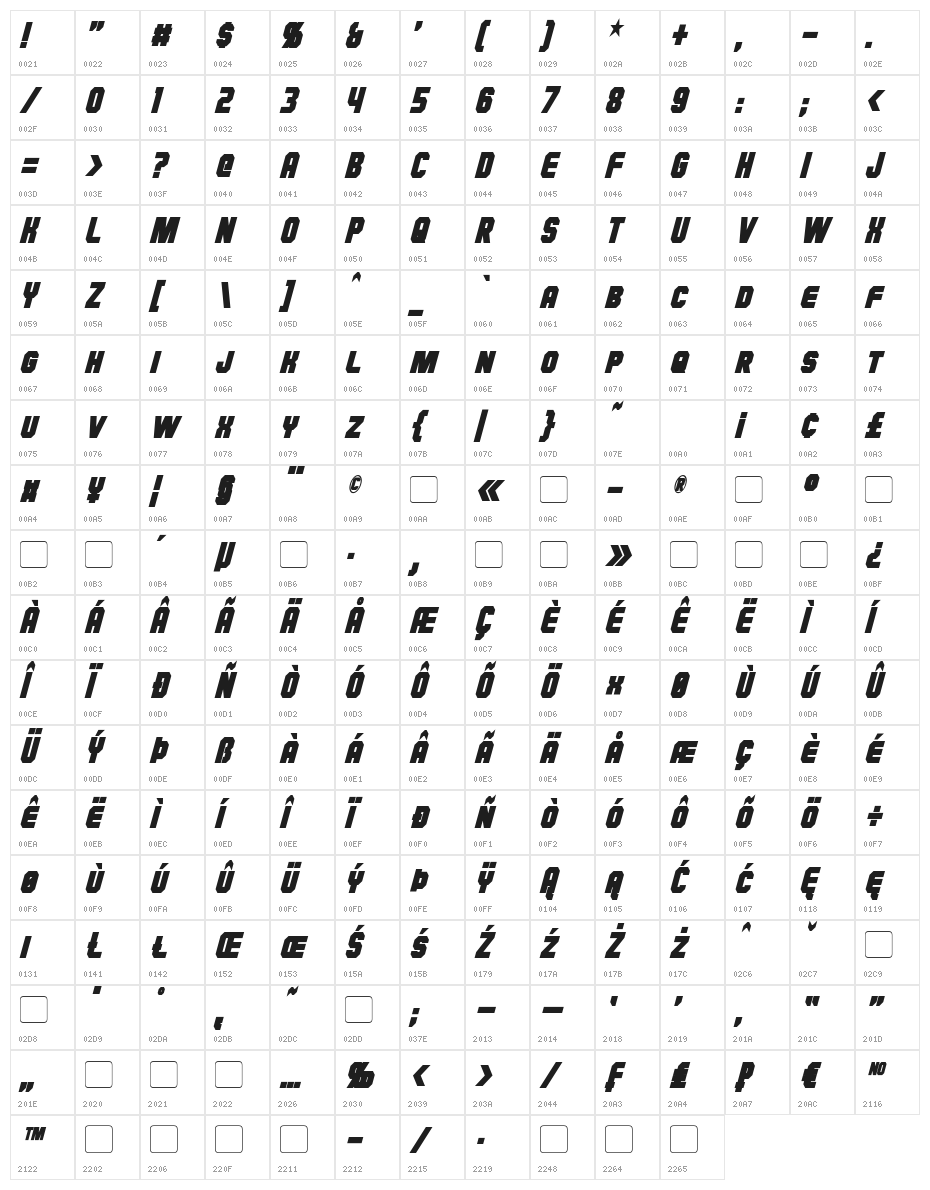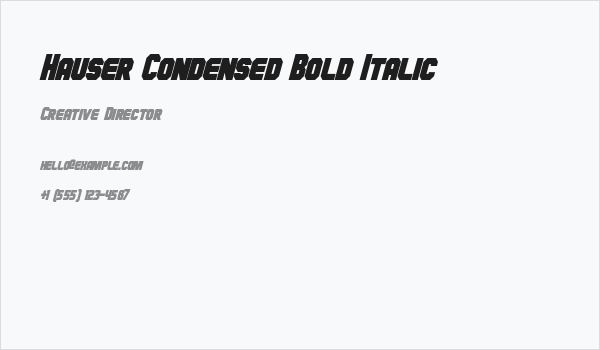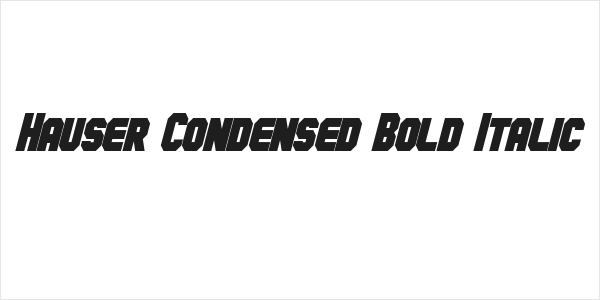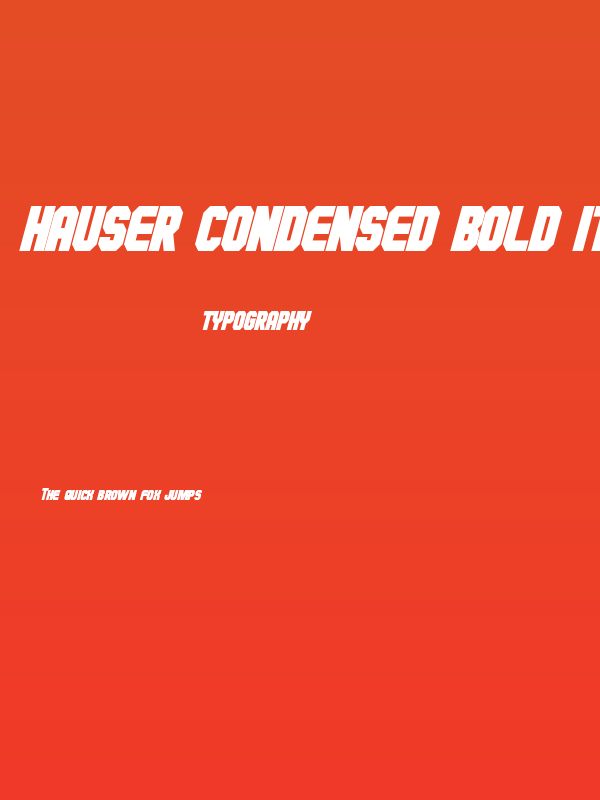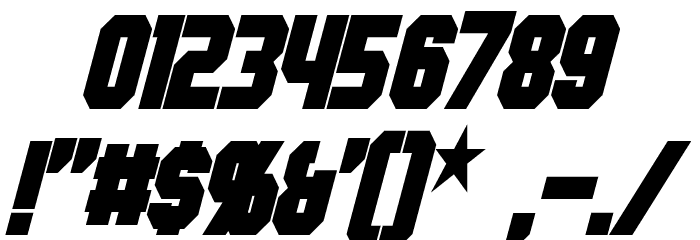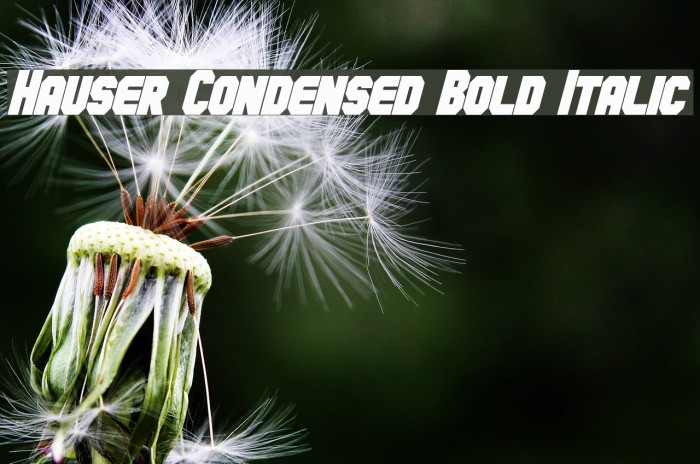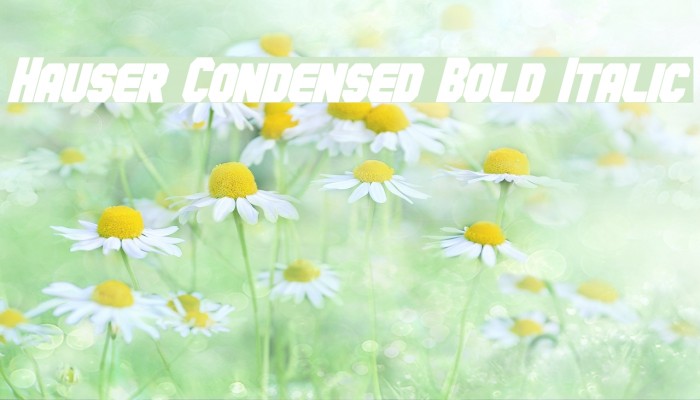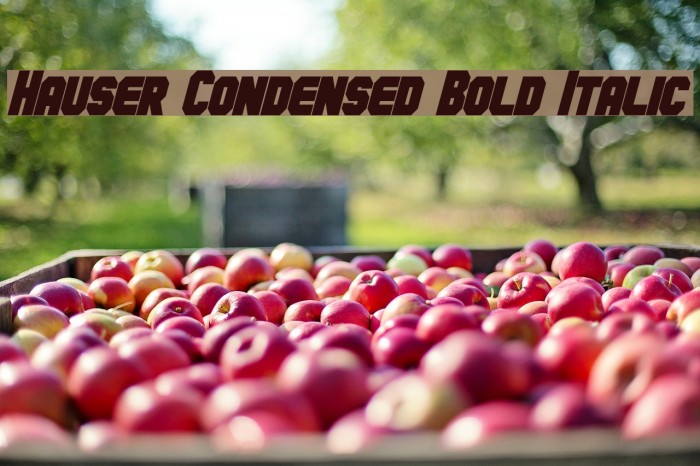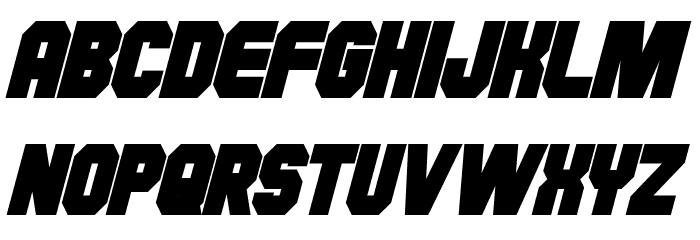
Hauser Condensed Bold Italic Font
Hauser Condensed Bold Italic Description
This font features a bold and italicized style with a condensed width, giving it a strong and dynamic appearance. The characters are sharply angled, providing a sense of movement and urgency. The uppercase letters are particularly striking, with a uniform height that maintains readability even at smaller sizes. The numbers and special characters are designed to match the boldness of the alphabet, ensuring consistency across all text elements. The overall design is modern and impactful, making it suitable for attention-grabbing headlines and titles. The tight character spacing enhances the compactness of the font, while the high contrast in stroke thickness adds to its bold visual presence.
| Proposed Projects | Ideal for sports branding, dynamic posters, action-themed designs, and modern advertising campaigns. |